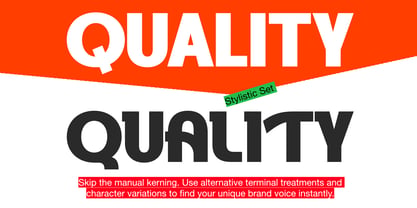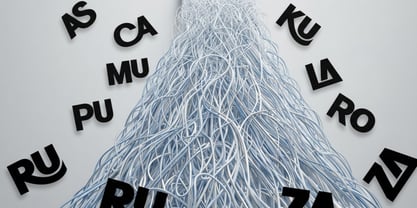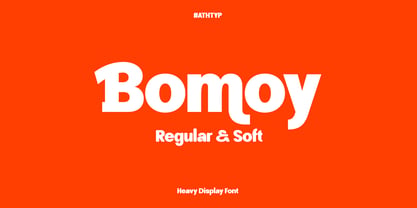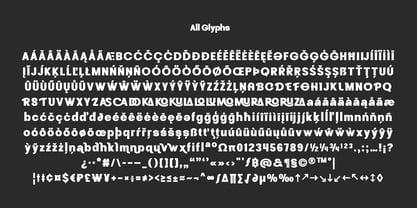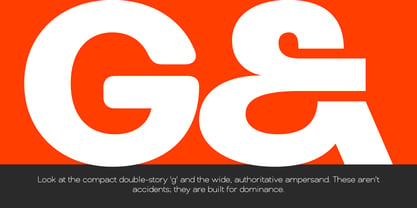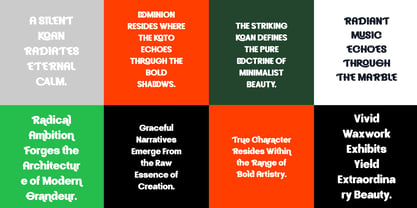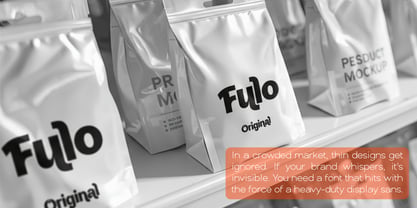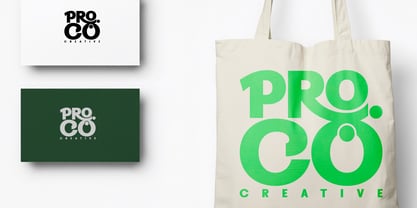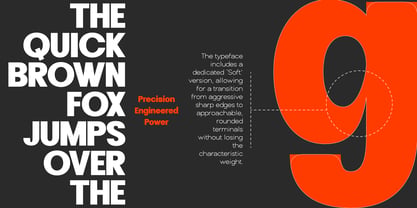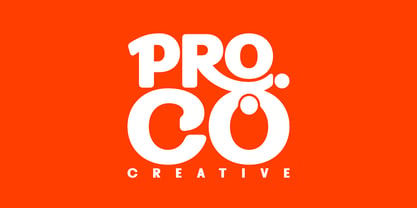
Bomoy
by Authentype
The Bomoy Font Family was designed by Ekayasa and published by Authentype. Bomoy contains 2 styles and family package options. More about this family
Bomoy is a powerhouse sans serif font designed for maximum impact, ideal for designers. With its ultra-heavy stems and tight counters, it captures the raw energy of urban streetwear and high-end editorial layouts. This isn’t just a font; it’s a structural tool for branding. The specimen showcases a massive x-height and minimal white space within characters, creating a dense, ‘brick-like’ textural rhythm. Whether you are working on a massive billboard or a compact logo, Bomoy maintains its legibility through intentional kerning and sharp, geometric construction. The typeface includes a dedicated ‘Soft’ version, allowing for a transition from aggressive sharp edges to approachable, rounded terminals without losing its characteristic weight.
Designers: Ekayasa Ekayasa
Foundry: Authentype